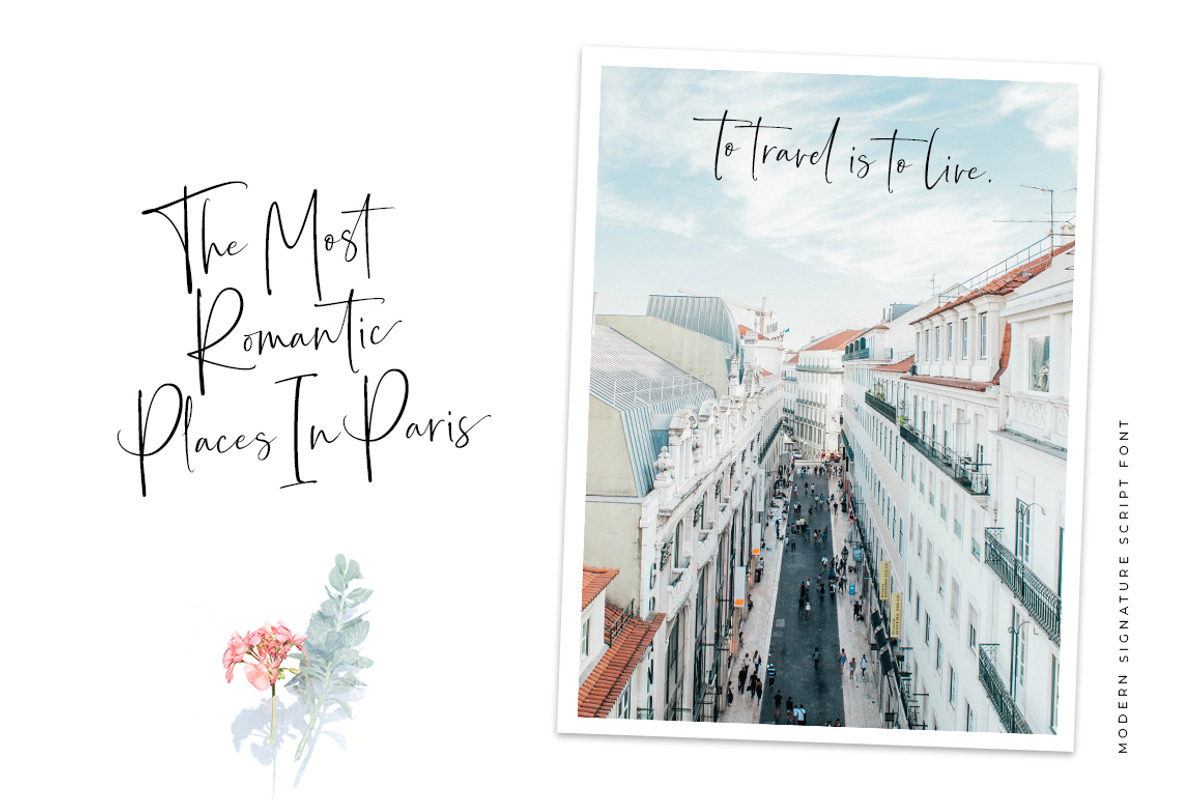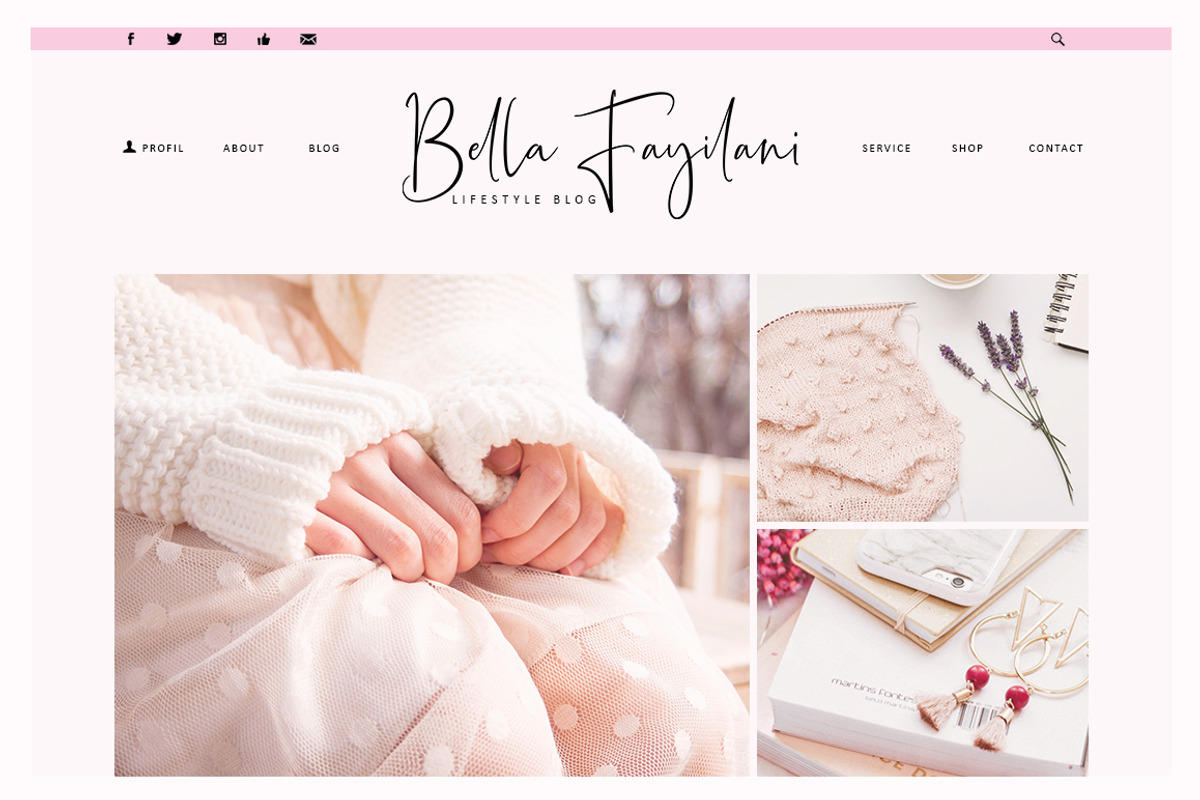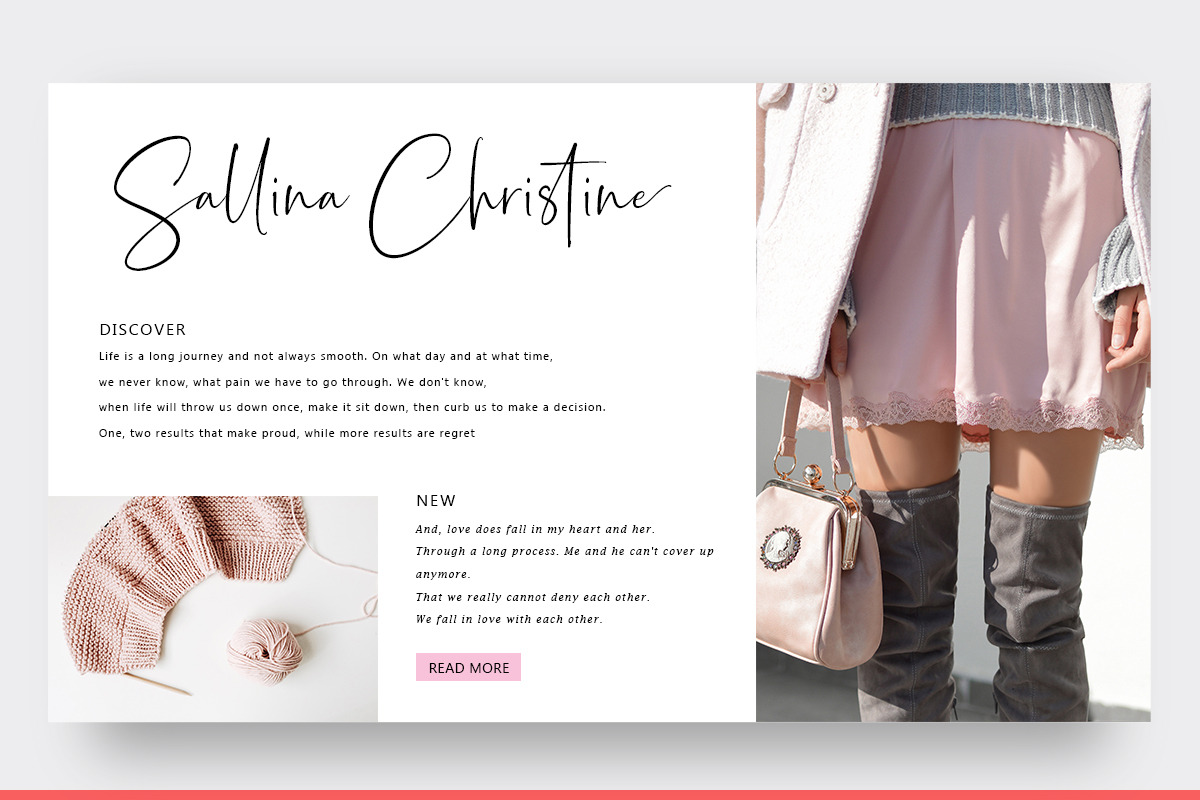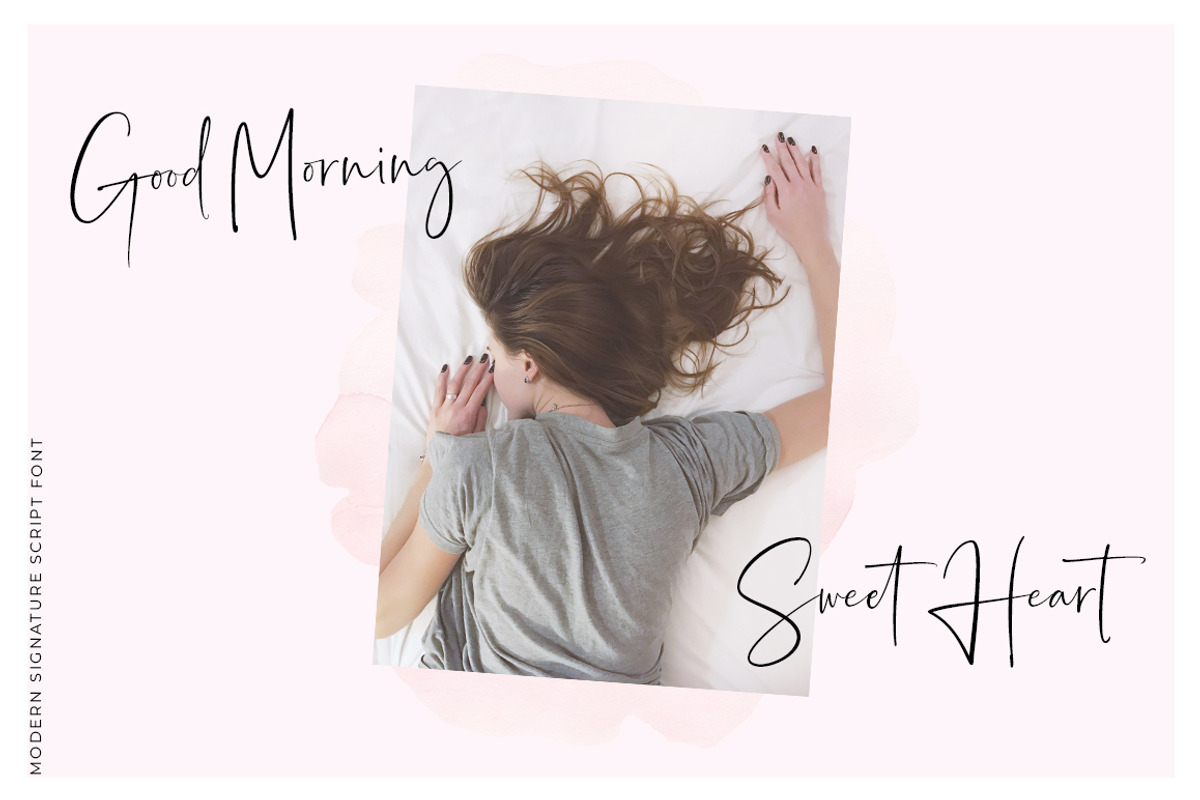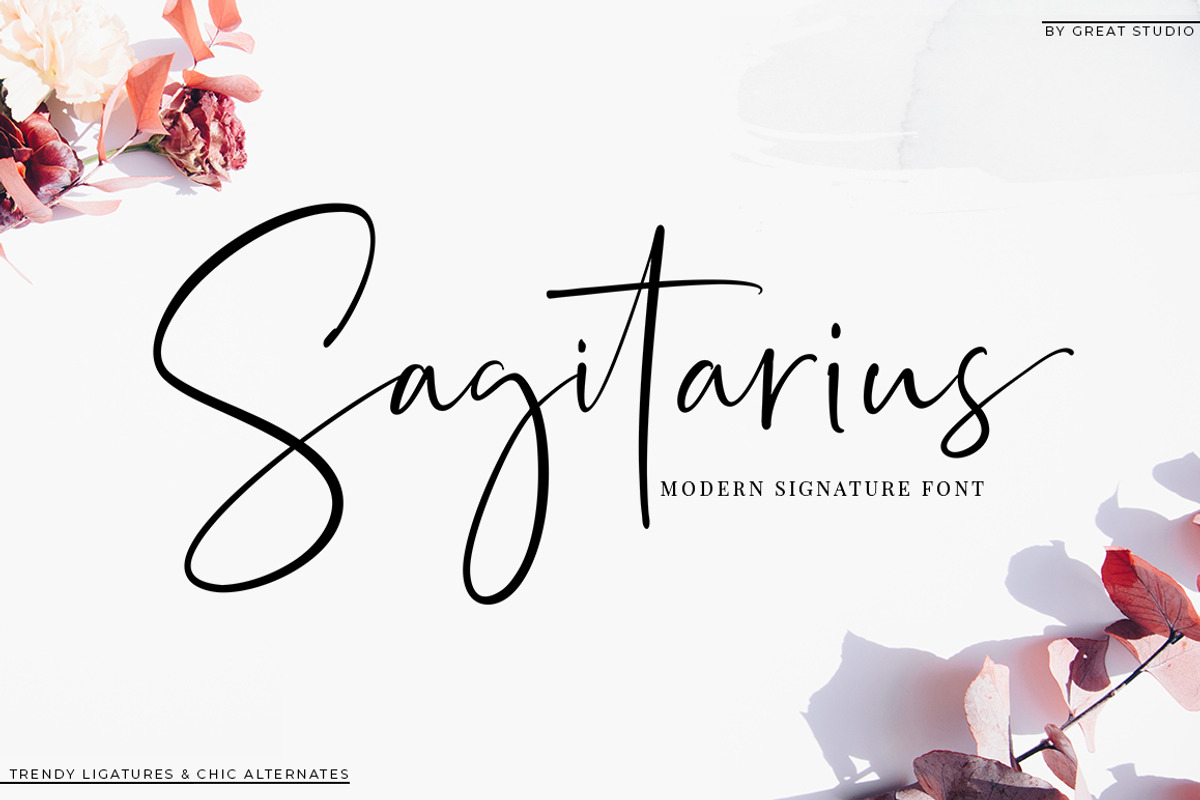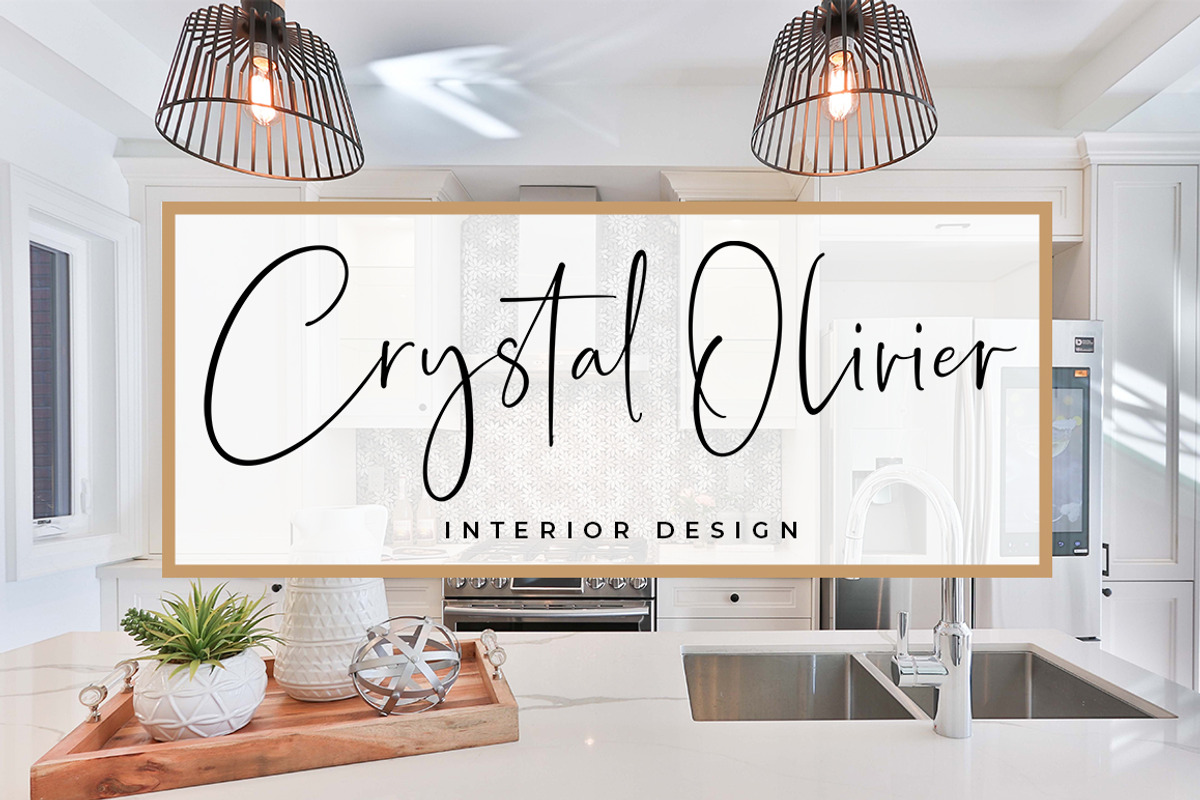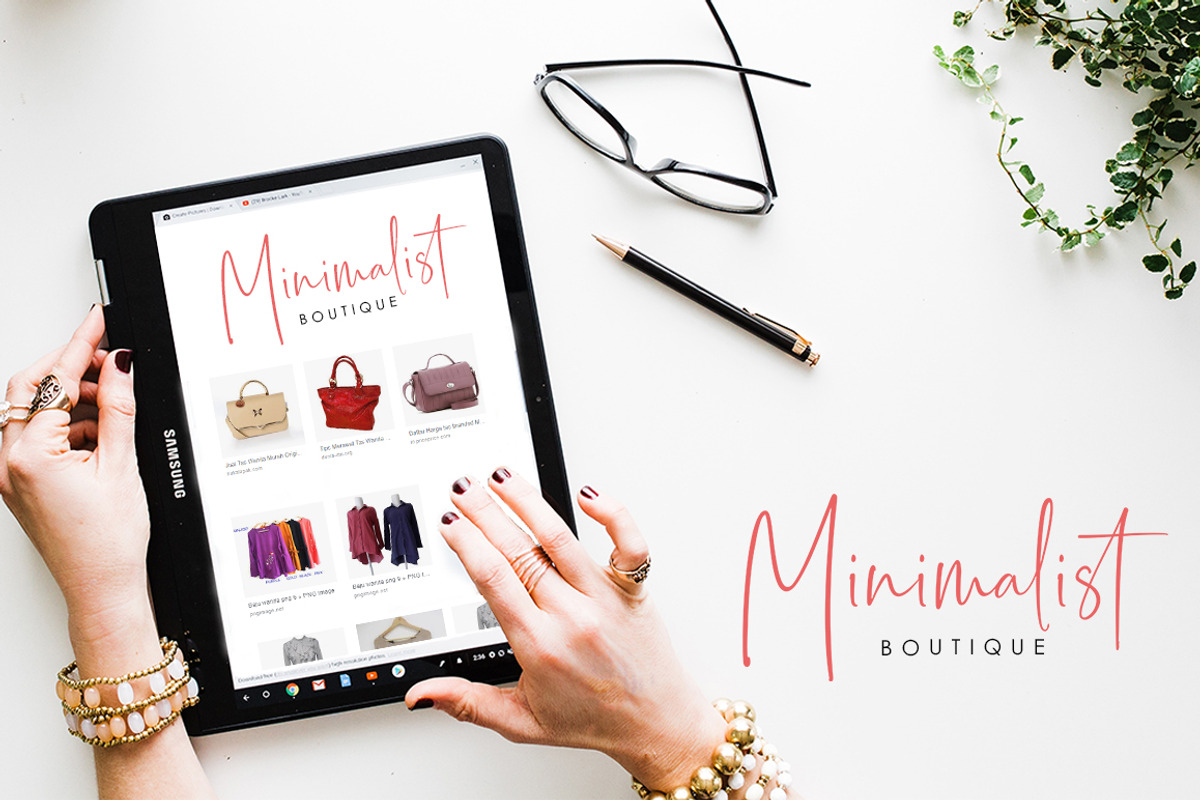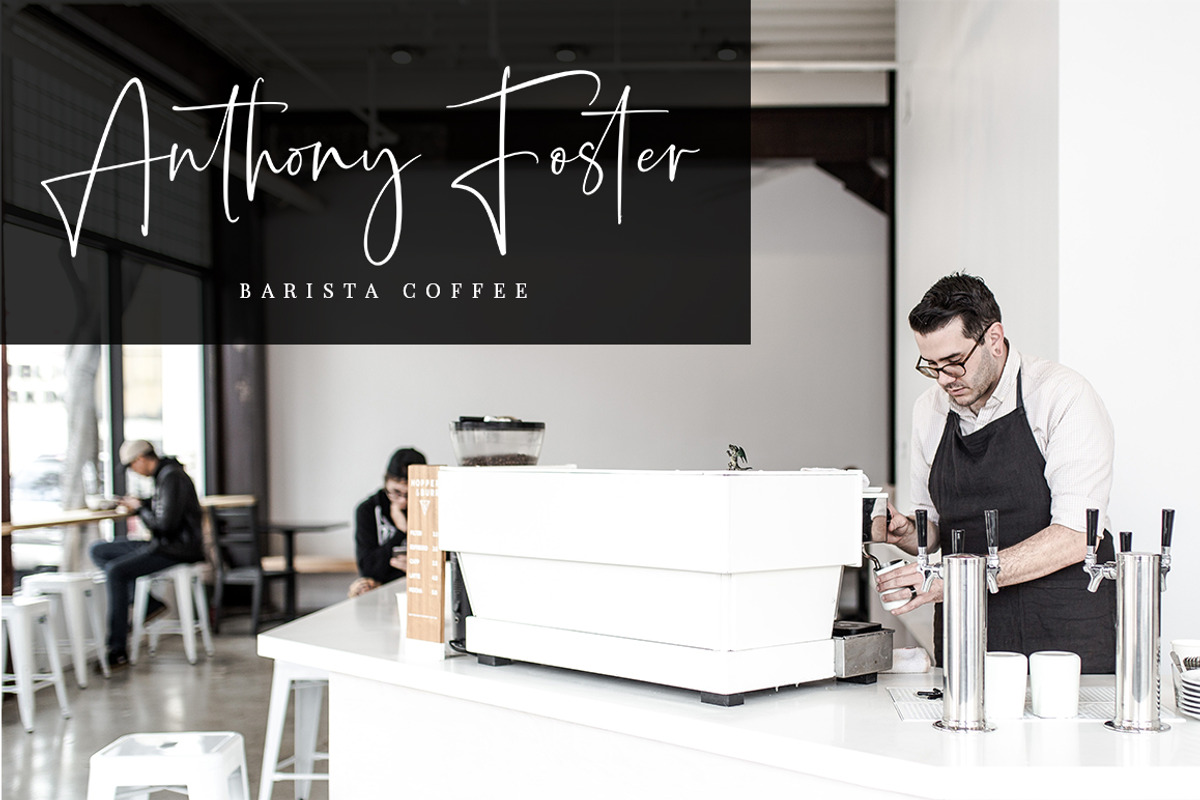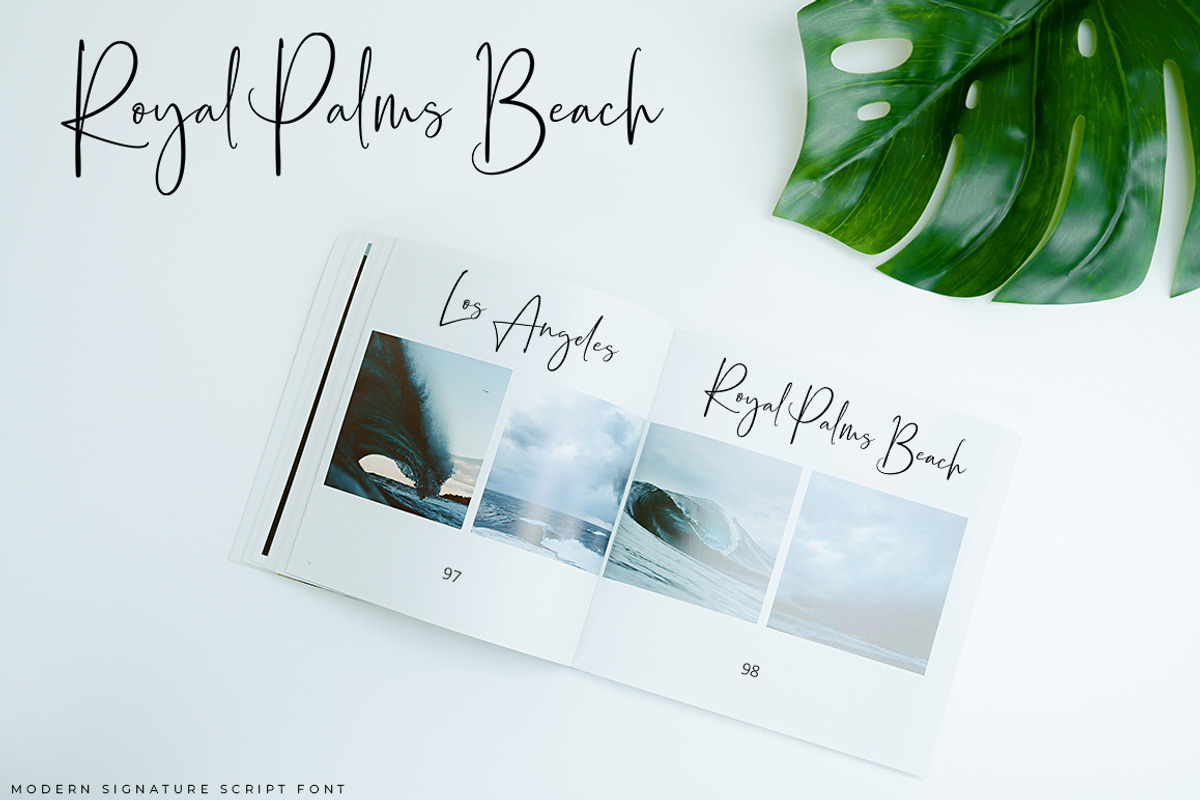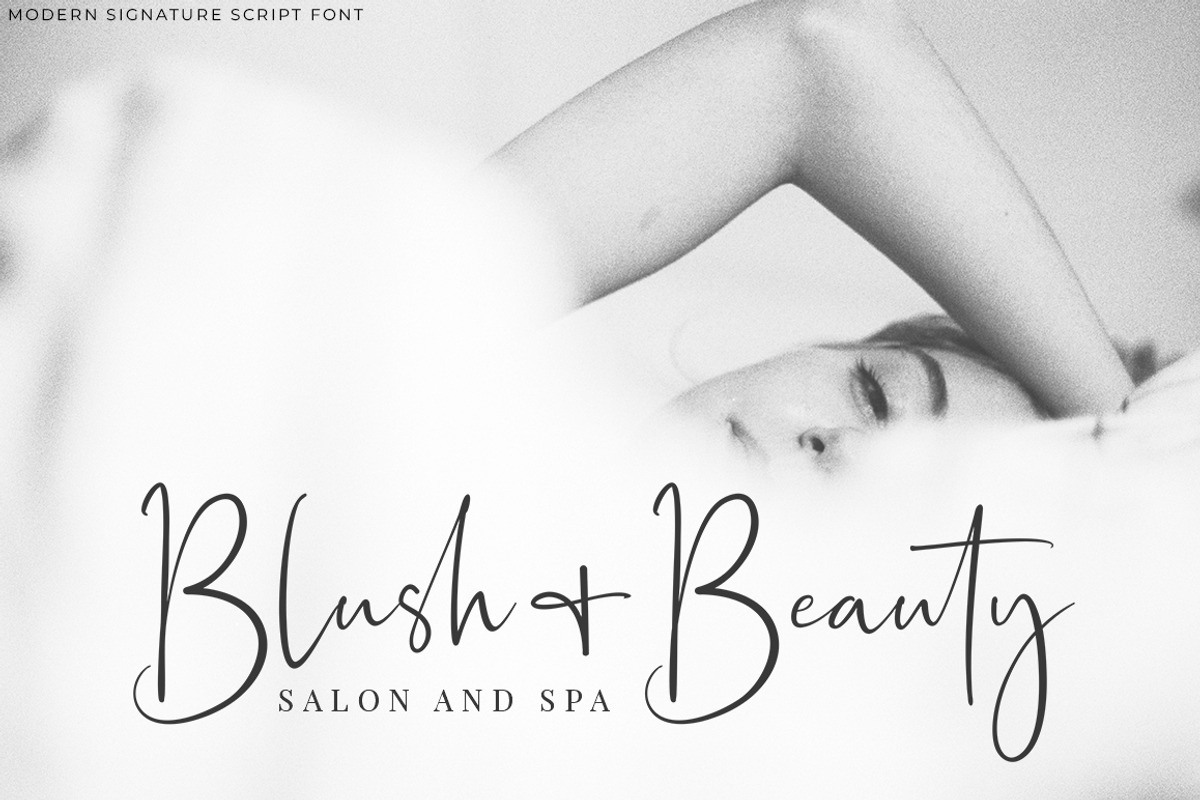
Sagitarius Signature Font
Sagitarius is a unique, elegant and modern handwriting font. that looks like a signature, this font is intentionally made with unique and alternating ligatures. This style of hand display makes it perfect for use in all your design projects whether it's logo, label, packaging design, blog title, poster, wedding designs, social media posts, Instagram design, etc.
Multiple Language Support: ŠÀÁÂÃÄÅÆÇÈÉÊËÌÍÎÏŸŽÐÑÒÓÔÕÖØÙÚÛÜÝßàáâãäåæçèéêëìíîïñòóôõöøùúûêýÿŒœšž